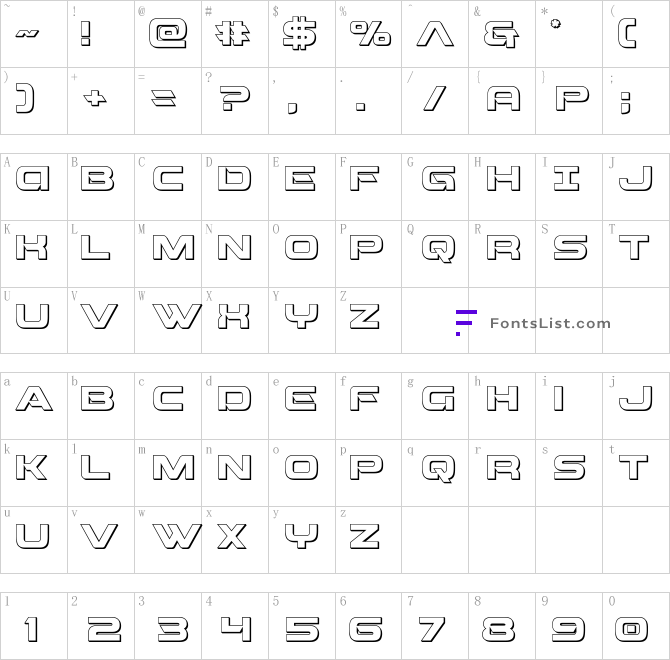
- Font Name:Beam Weapon 3D
Beam-Weapon-3D.ttf is a very beautiful artistic font, Beam-Weapon-3D.ttf is widely used in the design and printing of various books and pictures,Beam-Weapon-3D.ttf has a strong visual impact,Beam-Weapon-3D.ttf is a commonly used font in newspapers, magazines and books, and is used in posters, e-commerce Poster design, store design, logo design, font design and other fields.Beam-Weapon-3D.